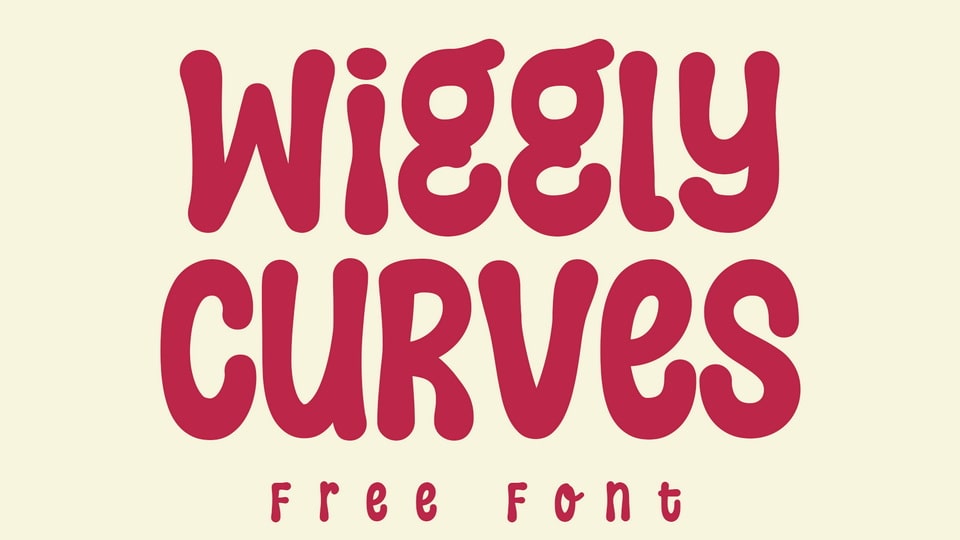
Wiggly Curves Font › Fontesk
Download Wiggly Curves font, a thick lettered and groovy display typeface. Wiggly Curves works well for various design ideas that require a fun, cool touch.
Designer: Niskala Huruf